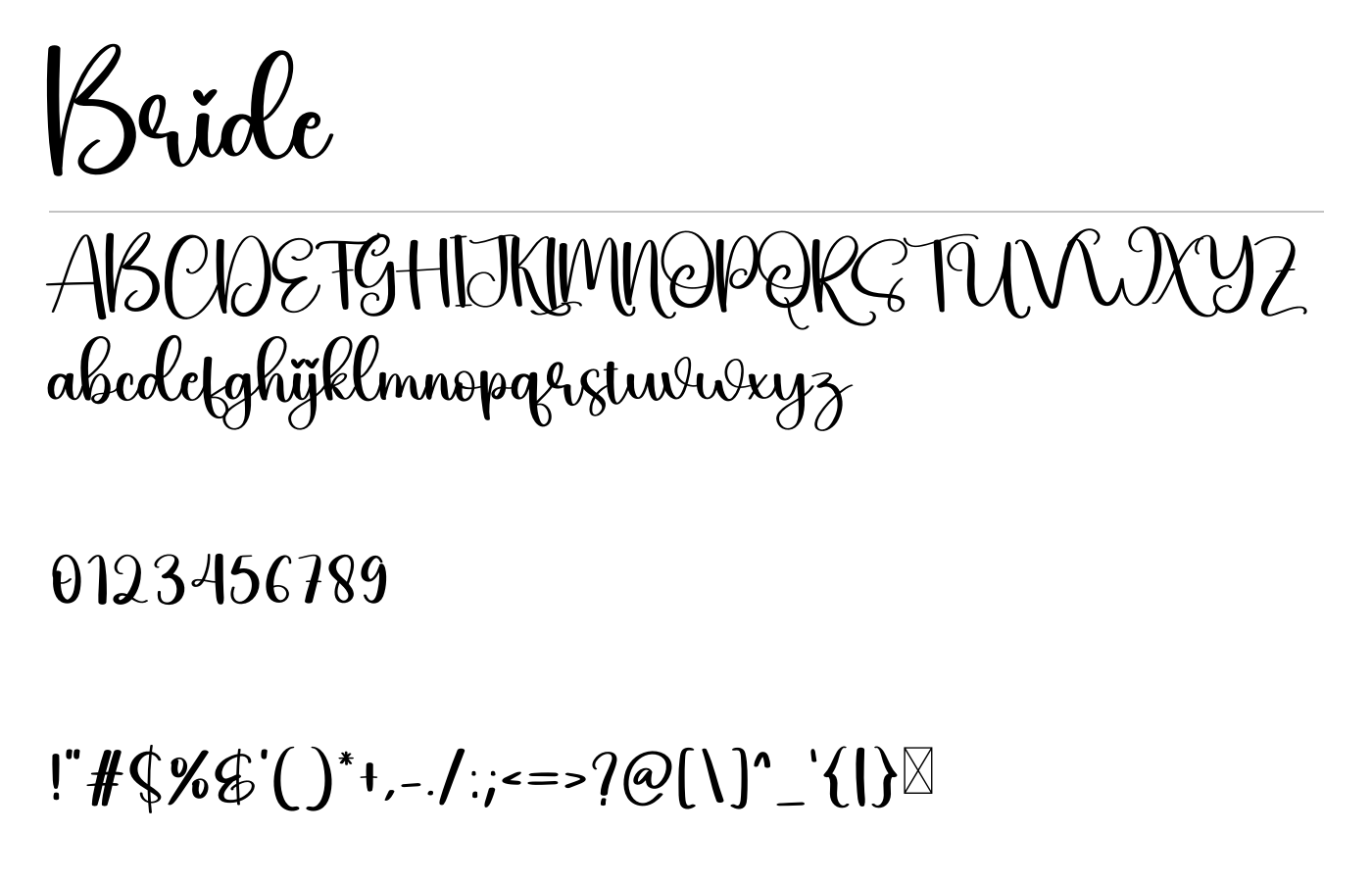
Bride Font is a charming and playful script typeface with elegant, flowing lines and whimsical curls, perfect for adding a romantic, handmade touch. Its smooth strokes and casual style make it ideal for wedding invitations, greeting cards, and feminine branding, offering a friendly yet refined personality. The font’s delicate balance between readability and artistic flair works beautifully in headlines and logos that want to convey warmth and creativity.
Bride Font
About Bride Font